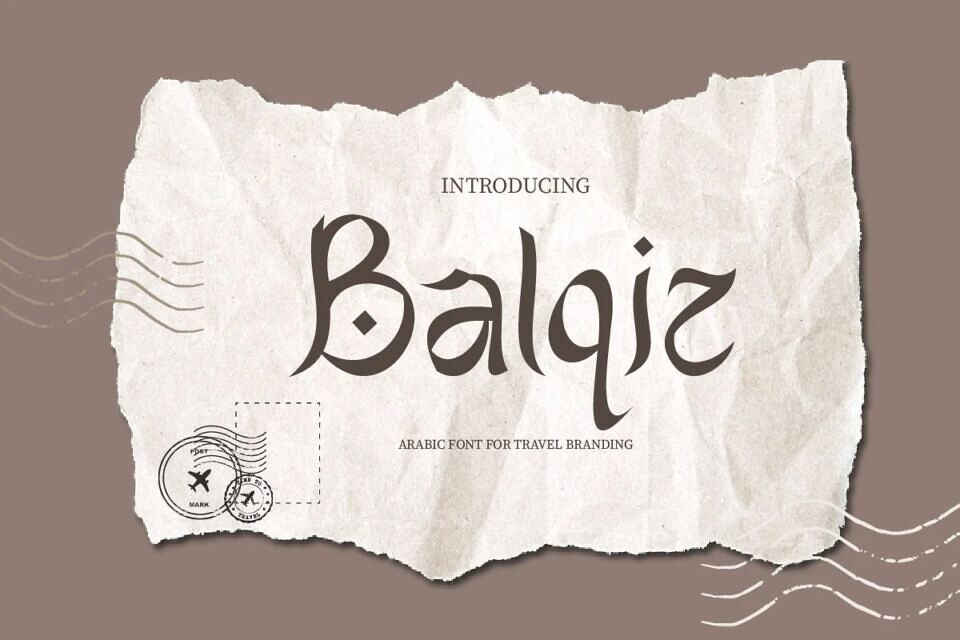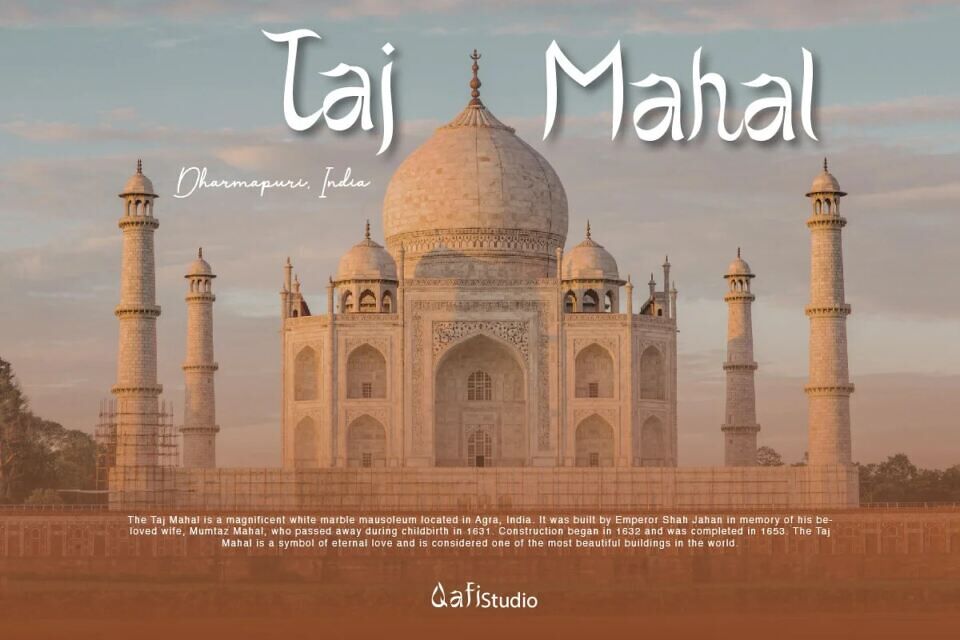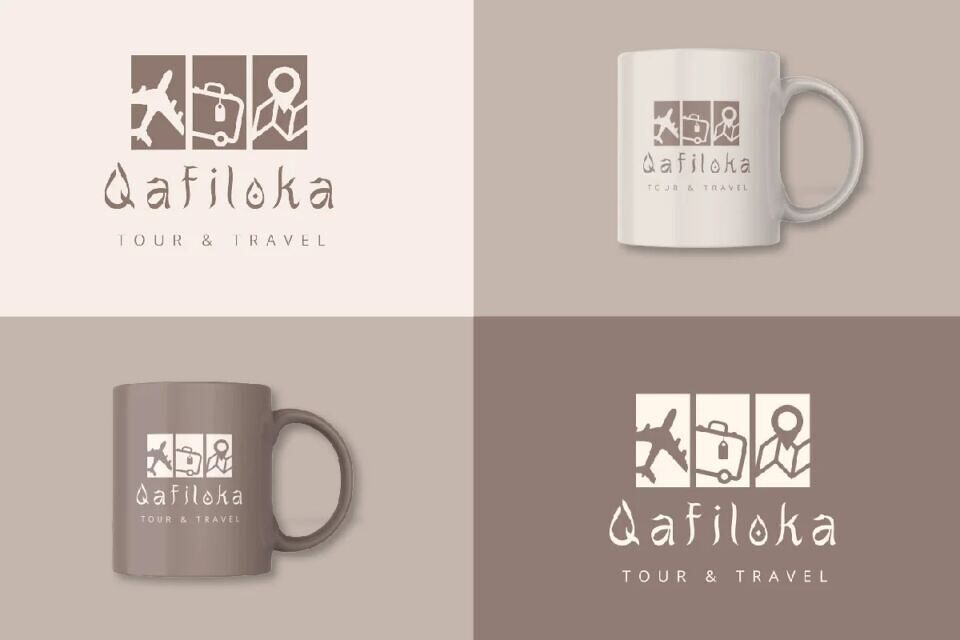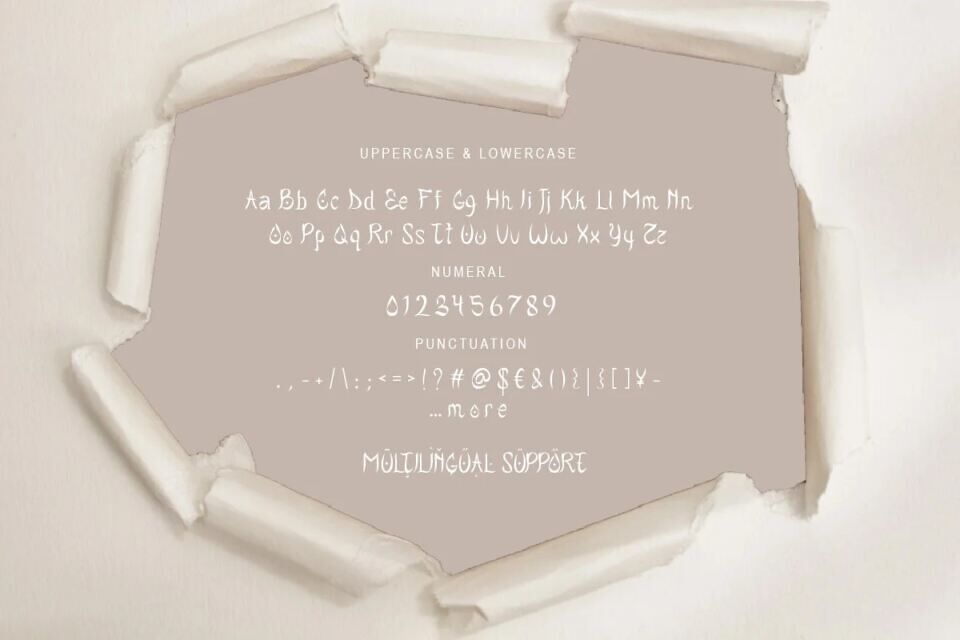
Balqiz Font
Immerse your audience in the rich culture of the Middle East with Balqiz. Designed to bring sophistication to travel branding, luxury posters, and Arabic-inspired themes, this display font combines elegance with functionality.
Its mocha-tone previews and smooth curves make it perfect for travel brochures, cultural events, and high-end hotel branding. Use Balqiz to create stunning calligraphy-style headers, Arabic-inspired product packaging, and even as the cornerstone of a luxury travel campaign.
Whether for a luxury hotel website, travel blog, or cultural exhibition, Balqiz brings refined authenticity to your creative projects.